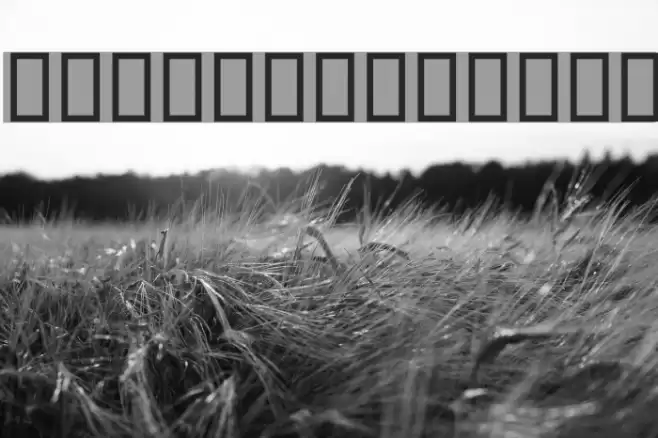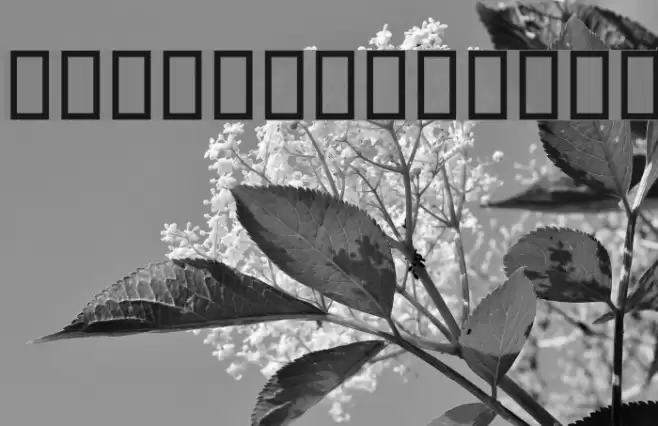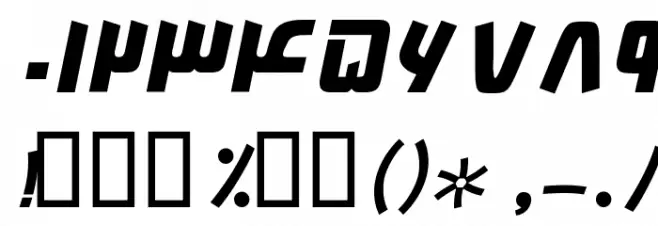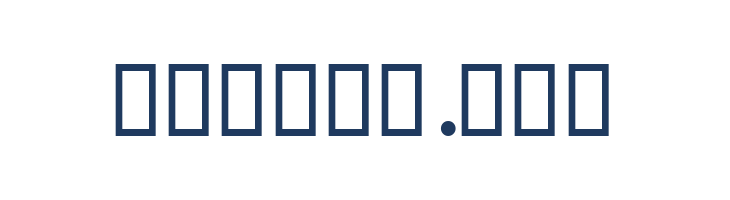
Farzaana Font
Farzaana Description
This font features a bold and dynamic style with a strong presence. The characters are designed with a slightly italicized slant, giving them a sense of movement and energy. The strokes are thick and consistent, providing a high contrast that makes the text stand out. The overall design is modern and sleek, suitable for making a statement. The characters are tightly spaced, enhancing the bold appearance and making it ideal for impactful headlines or titles.
A bold, dynamic font with high contrast and a modern, italicized style from Uncategorized fonts.
- Character Spacing: Tight